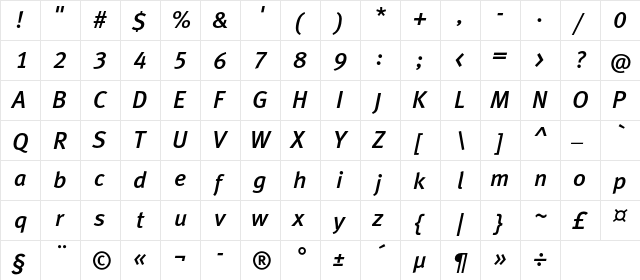
MetaMediumLFC Italic Font Preview
MetaMediumLFC Italic
MetaMediumLFC Italic Font Details
Design Context for MetaMediumLFC Typeface
MetaMediumLFC is a composed and adaptable typeface that performs quietly and consistently across a wide range of design contexts. Its italic angle brings a sense of urgency and motion to the letterforms.
Pro Tip: Use MetaMediumLFC for emphasis, pull quotes, and subheadings where its slanted energy can add rhythm to the layout.